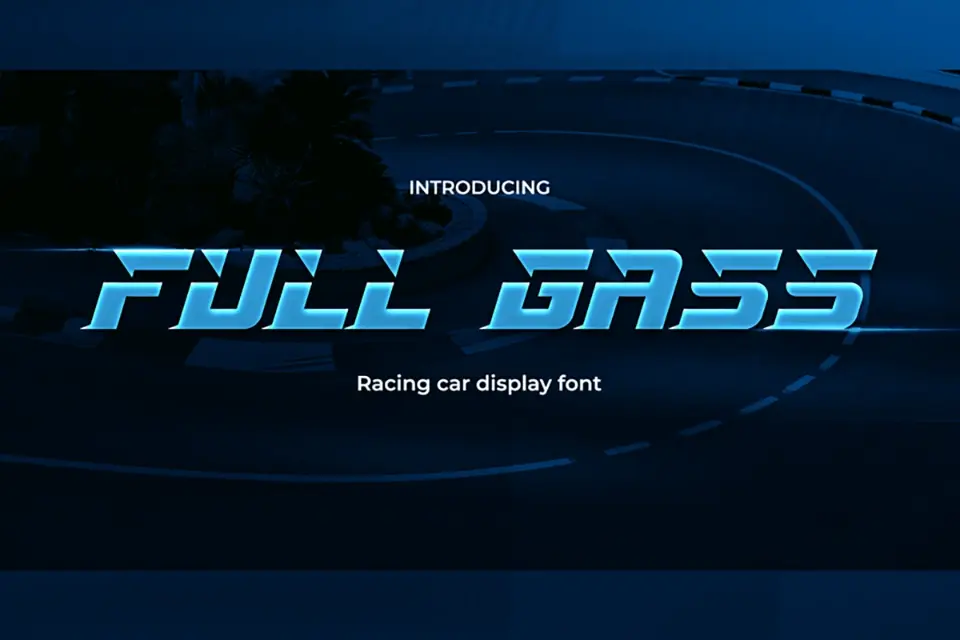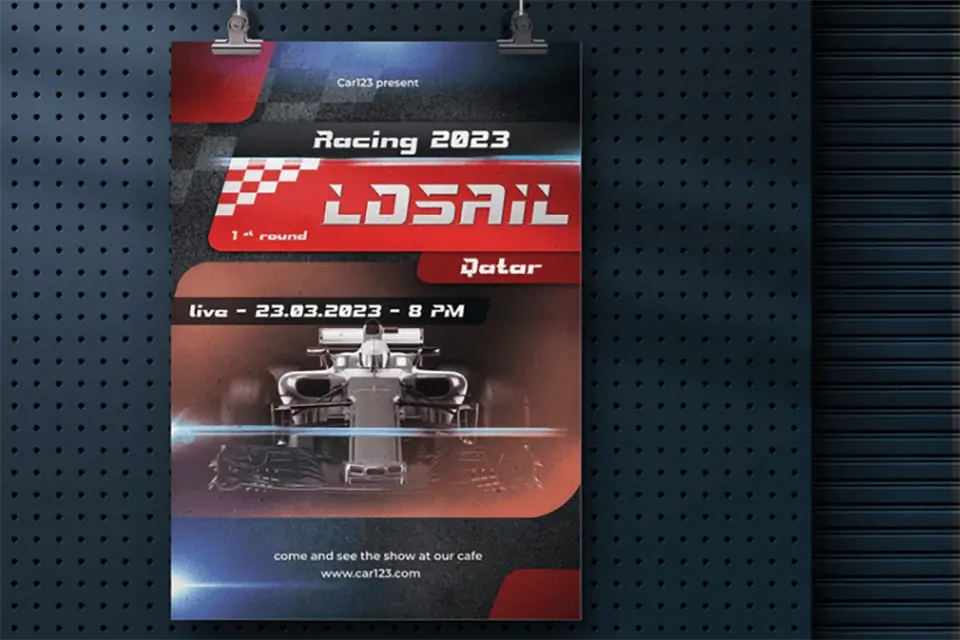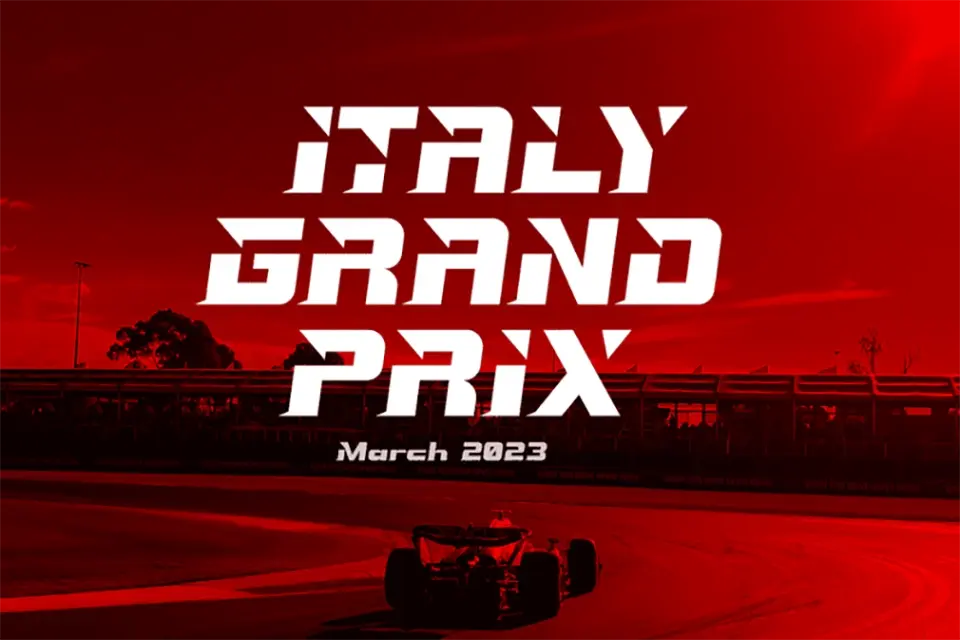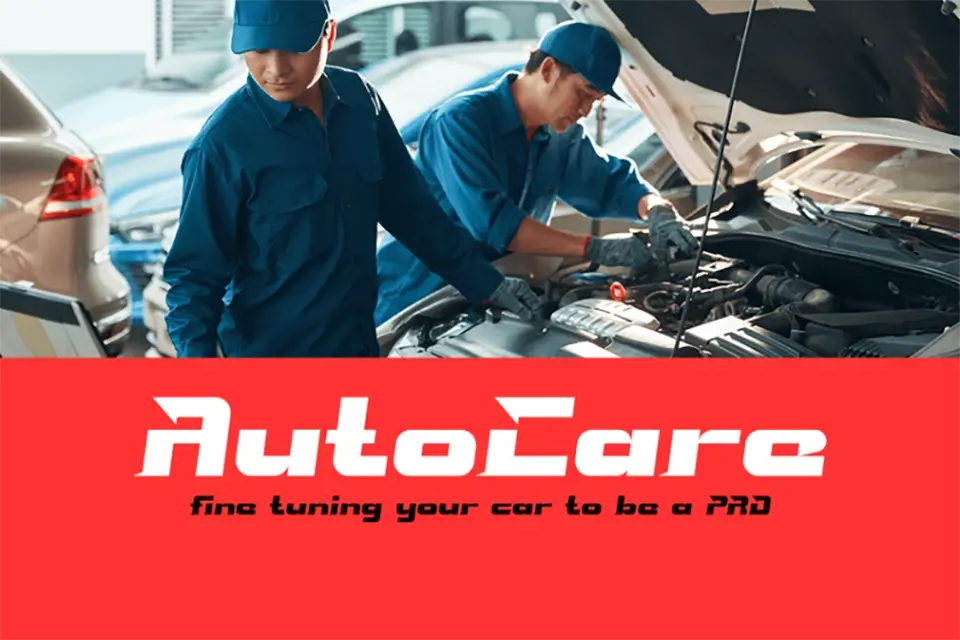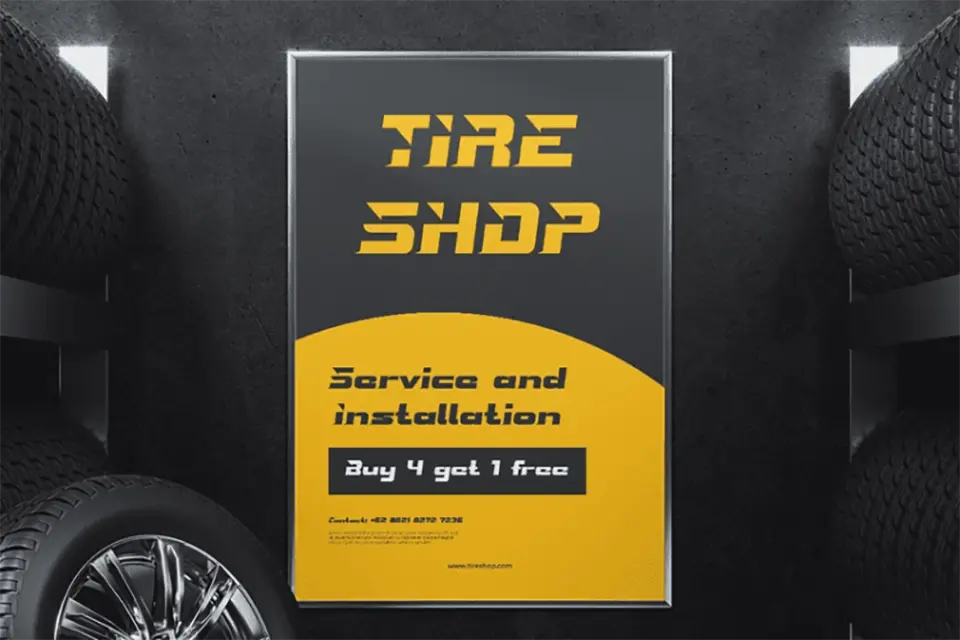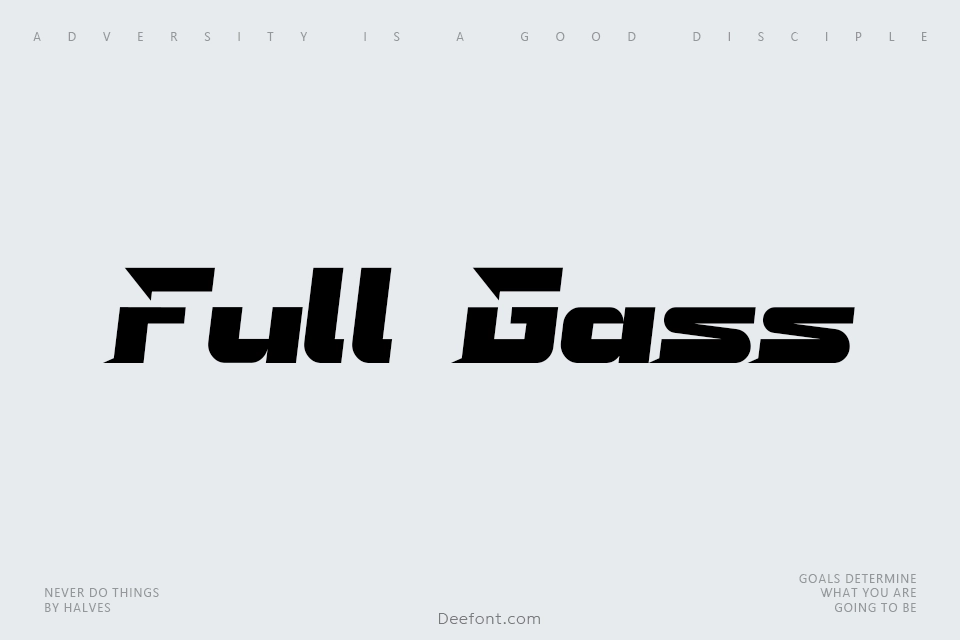
Full Gass Font
Full Gass is a bold, geometric display typeface designed for high-impact visual communication. With its expanded width, sharp angular shapes, and dynamic character, it delivers futuristic flair perfect for racing-themed projects, modern branding, tech-oriented designs, and sci-fi concepts. The font’s striking geometric forms and sharp angles create powerful visual presence while maintaining excellent readability for headlines, posters, and digital artwork requiring edgy sophistication and contemporary appeal.